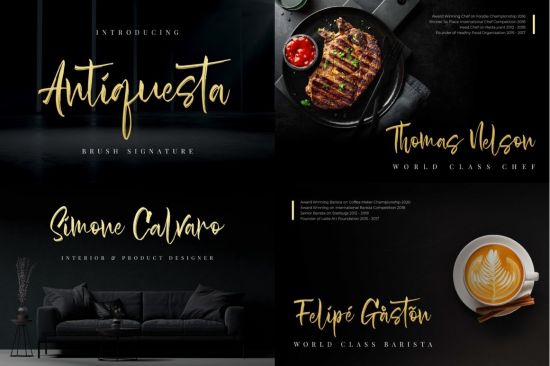
Antiquesta is an elegant and flowing handwritten font. It is PUA encoded which means you can access all of the glyphs and swashes with ease! It features a varying baseline, smooth lines, gorgeous glyphs and stunning alternates. It maintains its classy calligraphic influences while feeling contemporary and fresh. Fall in love with this font and bring your projects to the highest levels!